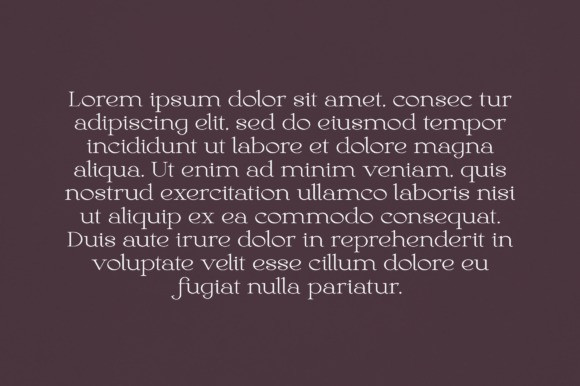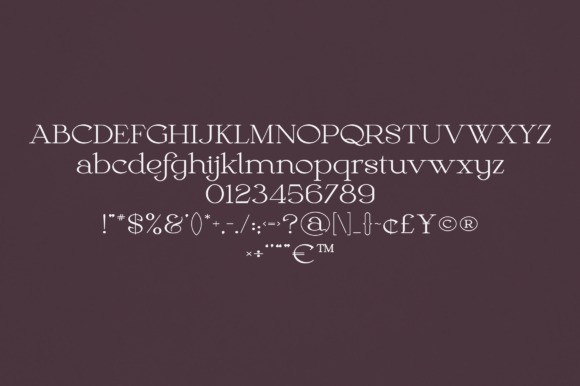
Bloom Font
Bloom Font is an elegant and versatile font that will make your typography truly unique! It will enchant every logo, branding, headline, or plain text!